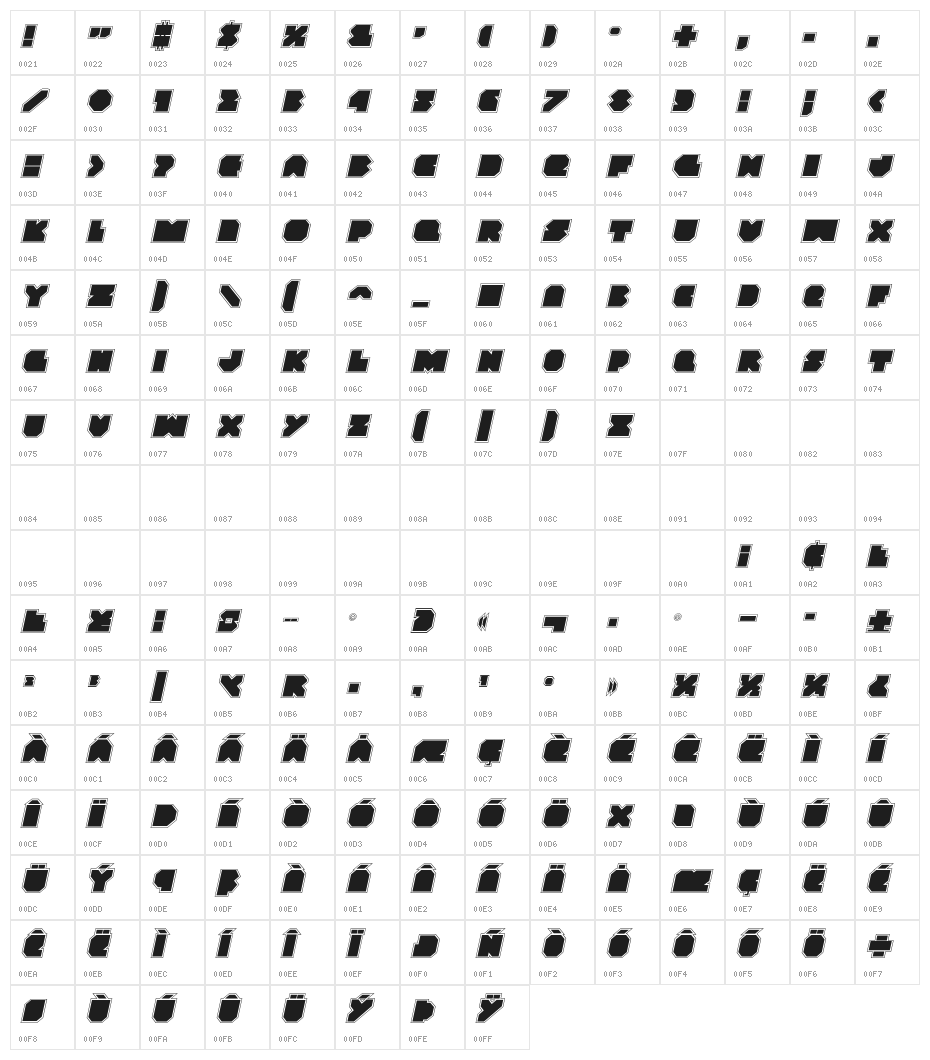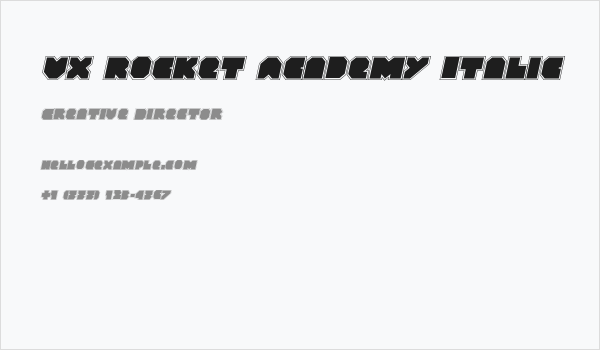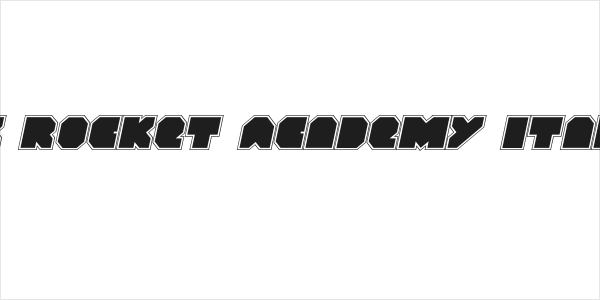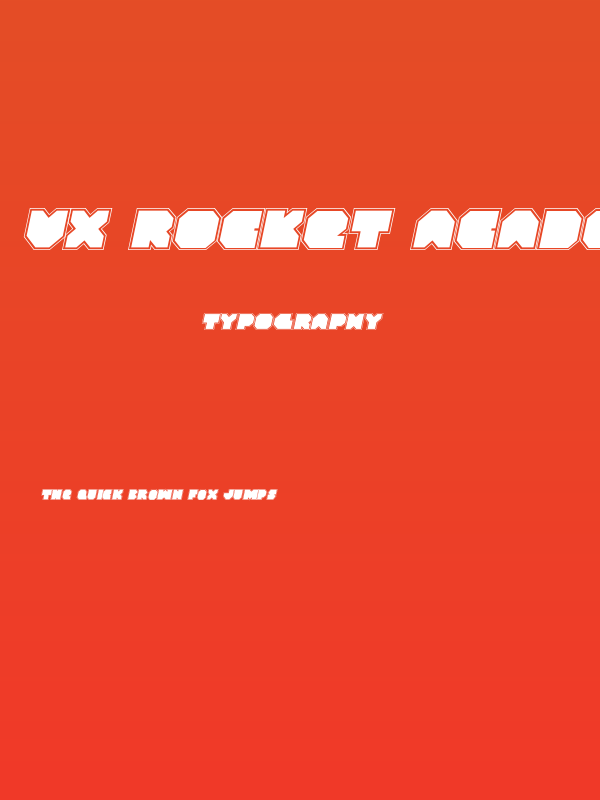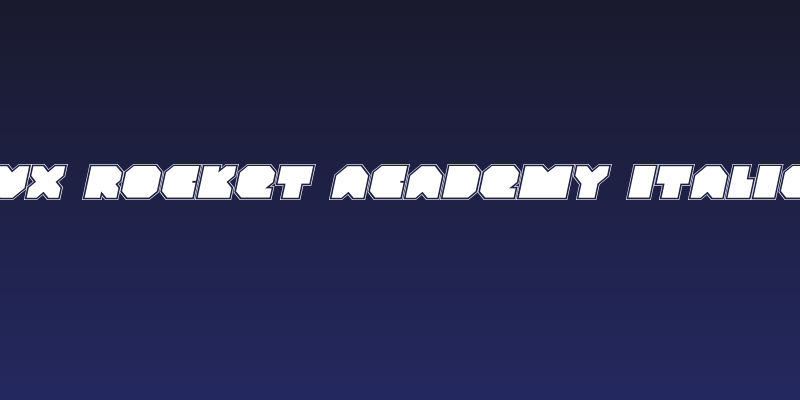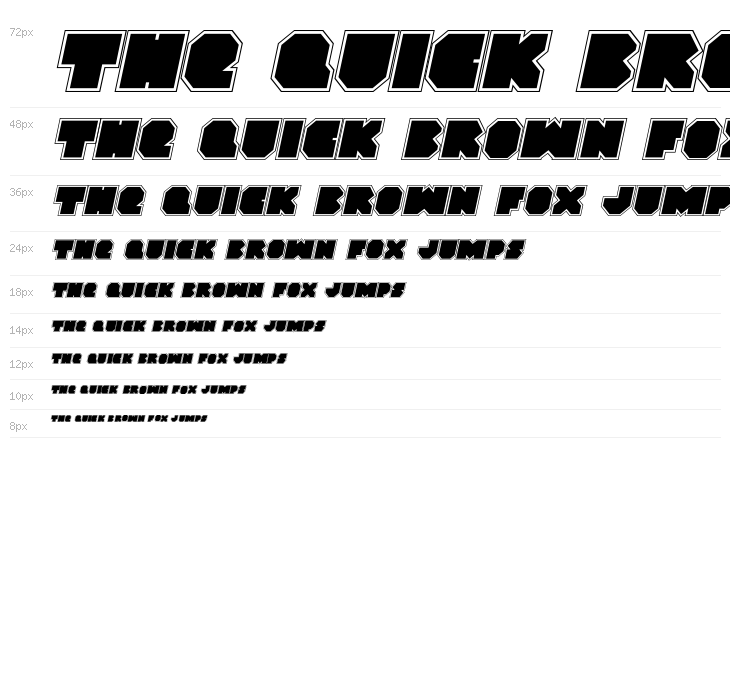
VX Rocket Academy Italic Font
VX Rocket Academy Italic Description
This font features a bold, geometric design with a futuristic flair. Each character is constructed with sharp angles and a thick outline, creating a striking and dynamic appearance. The uppercase and lowercase letters share a consistent style, emphasizing uniformity and cohesion. The numbers and special characters maintain the same boldness and angularity, ensuring a seamless integration across all text elements. The italic slant adds a sense of motion and speed, enhancing its modern and edgy aesthetic. This font is ideal for projects that require a strong visual impact and a contemporary, tech-inspired look.
| Proposed Projects | Ideal for sci-fi themed designs, tech branding, video game titles, and futuristic posters. |